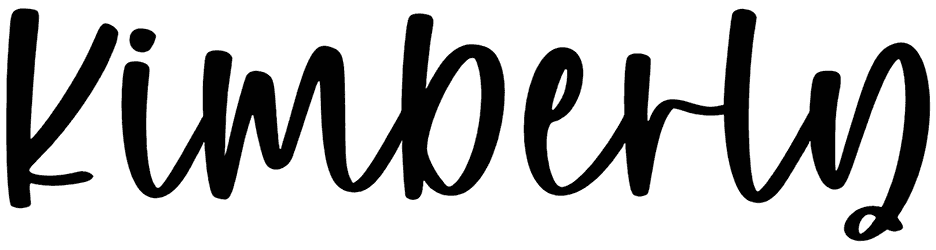
Kimberly Font
Kimberly font is a really cute font for comic lovers. With its curly design, this handwritten font is a perfect set for playrooms or kids’ zones, magazine layouts, sweet and candy packaging, or on any project you’ve got…
Kimberly font is a really cute font for comic lovers. With its curly design, this handwritten font is a perfect set for playrooms or kids’ zones, magazine layouts, sweet and candy packaging, or on any project you’ve got in mind. Combine this script font with your favorite themes to enhance your work to the next level.